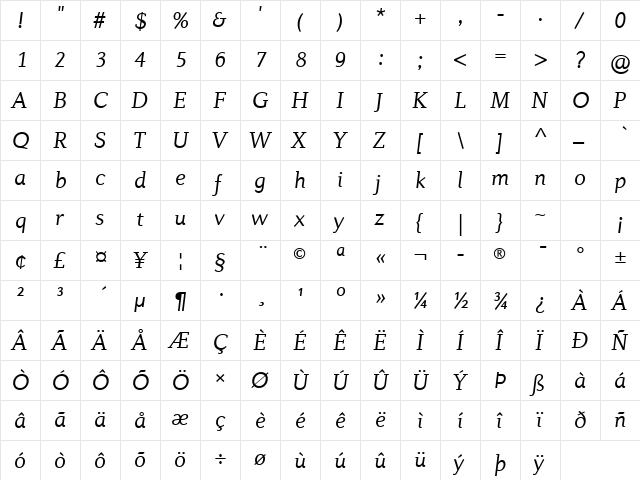
Diverda Serif Com Light Italic
| Foundry | Linotype GmbH |
| Designer | Daniel Lanz |
Design Context for Diverda Serif Com Typeface
Diverda Serif Com brings classic typographic sensibility to the table — its serifs and measured letterforms reflect centuries of print heritage. The slanted form adds forward momentum and visual energy. Its slender proportions lend an understated elegance to any composition.